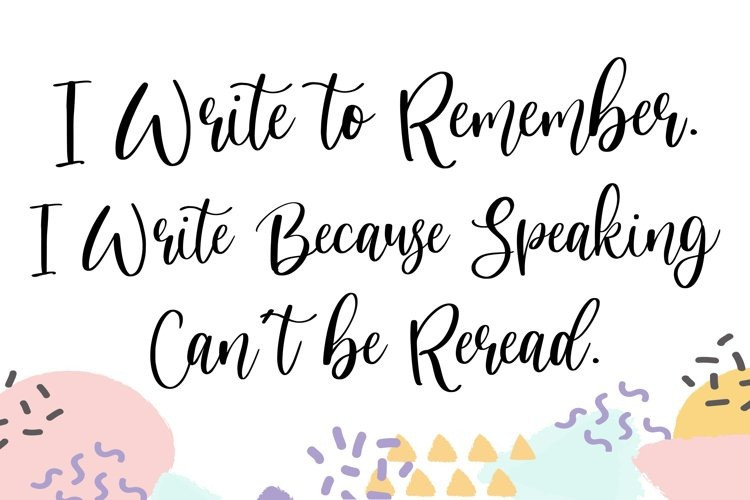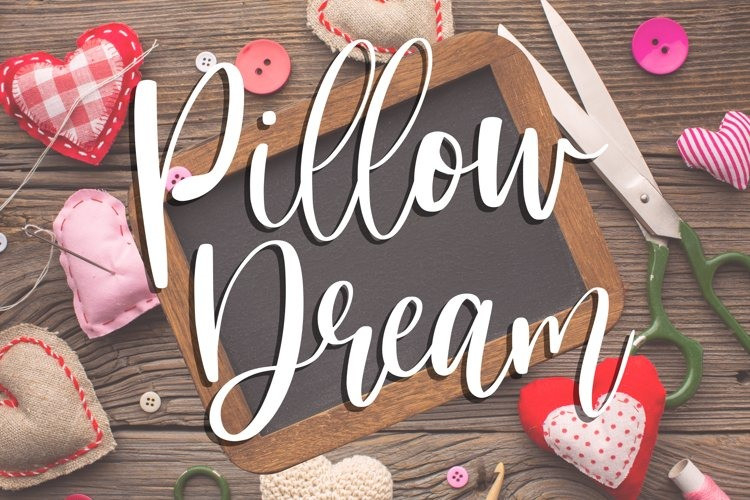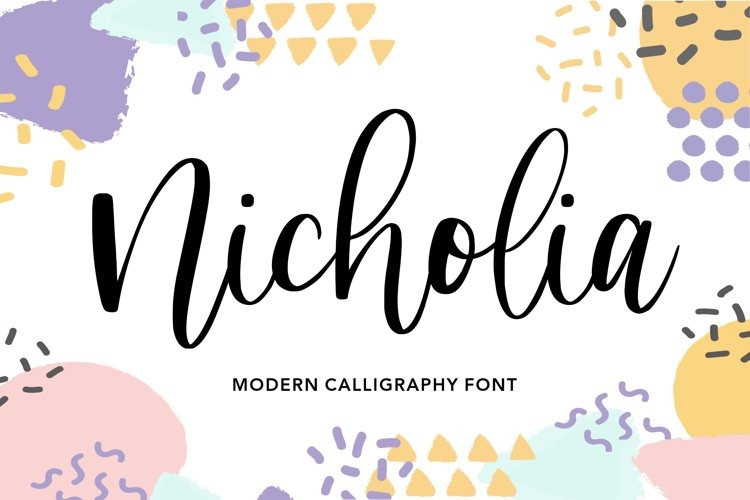
Nicholia Script Font
Nicholia is perfect for product packaging, branding project, megazine, social media, wedding, or just used to express words above the background.